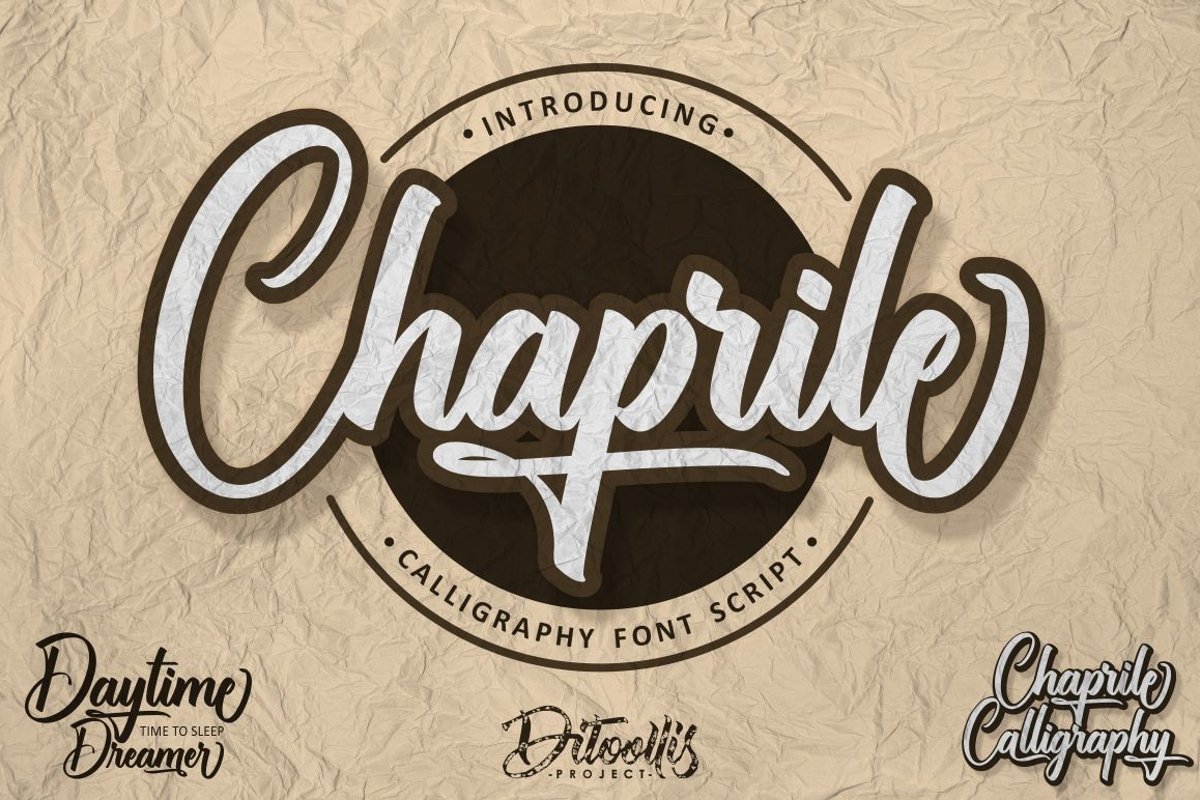
Chaprile
introduce "Chaprile".
script font that just released
This font is cool, elegant, modern ...
the font that fits your design. fonts that are very suitable for invitations, logos, business cards, covers, on shirts, for quotes and more ...
Equipped with font:
- numbers
And of course there are several other features:
- Alternates